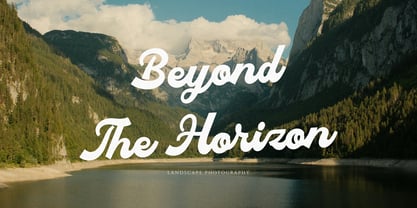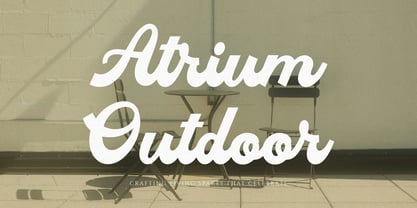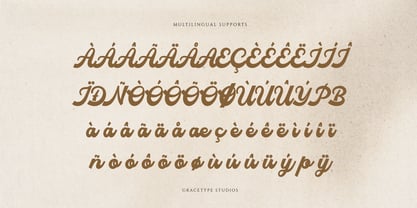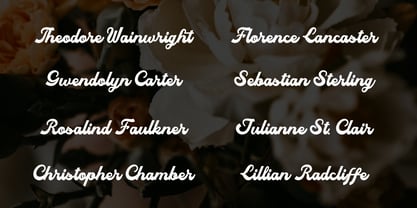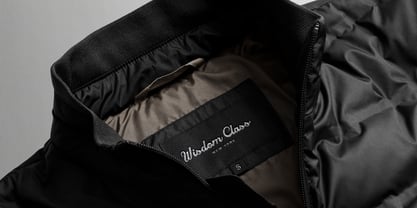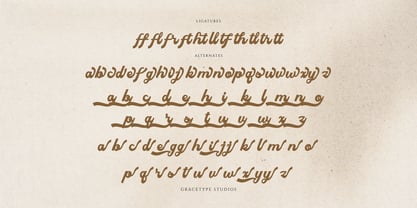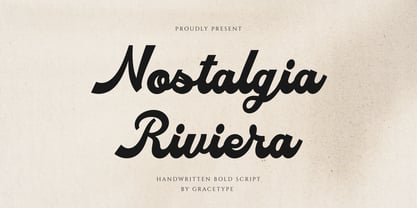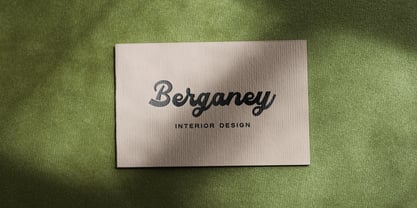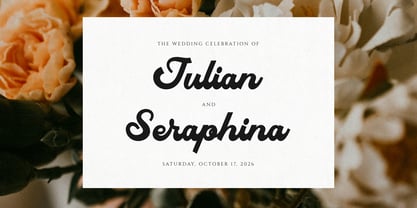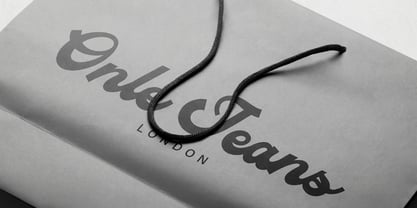
Nostalgia Riviera
Nostalgia Riviera | Handwritten Bold Script, from Gracetypestudio, suitable for any projects such as: logos, branding projects, homeware designs, product packaging, mugs, quotes, posters, shopping bags, t-shirts, book covers, name card, invitation cards, greeting cards, label, photography, watermark, special events, and all your other lovely projects that need a Script taste.